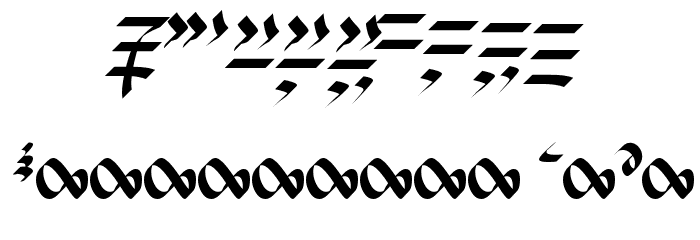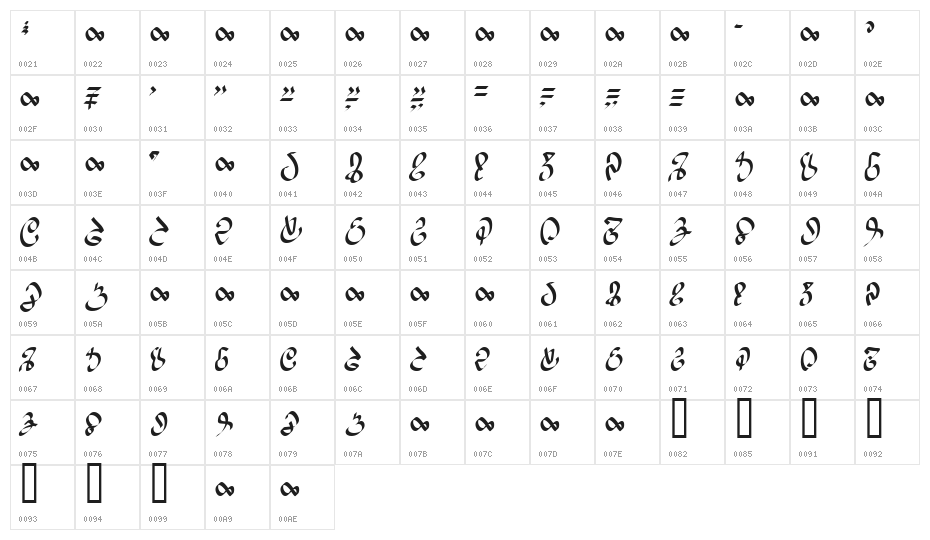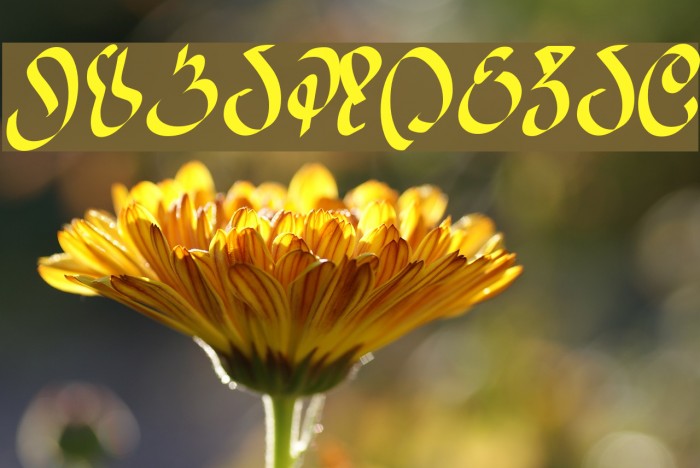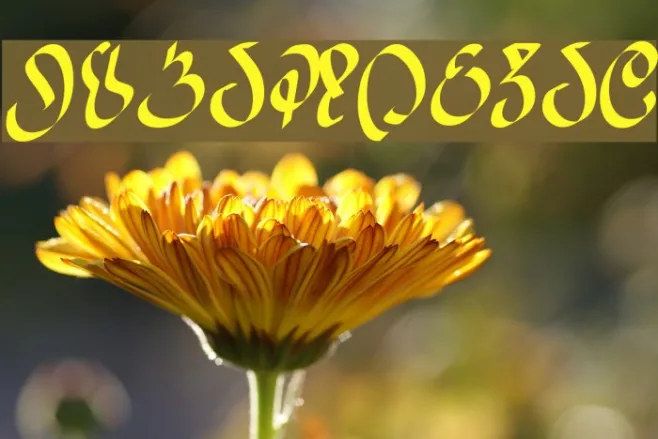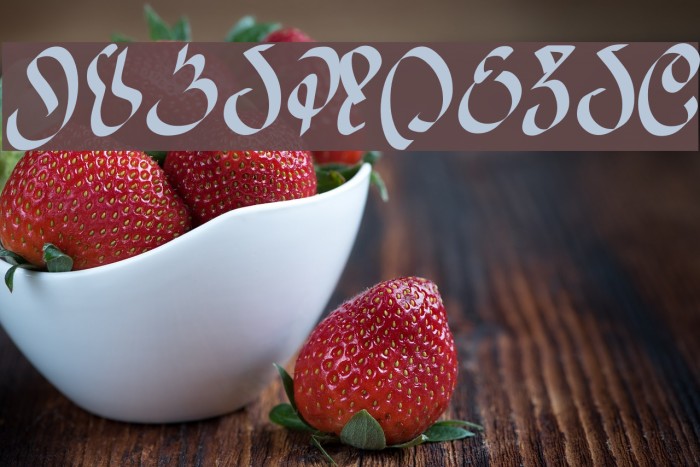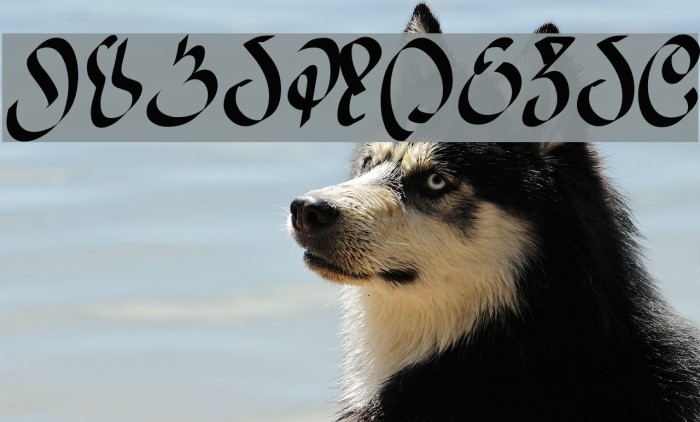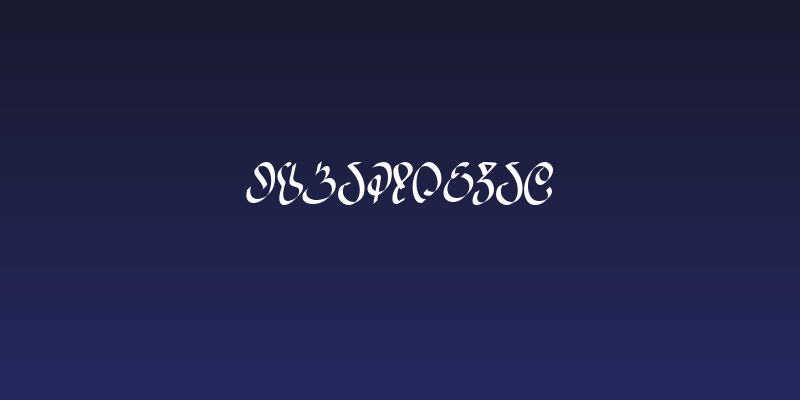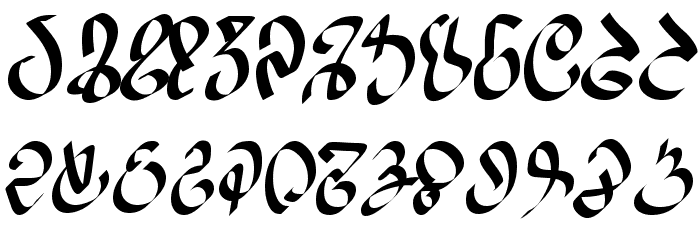
WizardSpeak Font
WizardSpeak Description
This font features a highly decorative and mystical style, reminiscent of ancient scripts or magical runes. The characters are bold and flowing, with intricate curves and sharp angles that create a sense of movement and energy. The uppercase and lowercase letters share similar design elements, maintaining a cohesive look throughout. The numerals and special characters are equally stylized, adding to the font's unique and enchanting appearance. This font is ideal for projects that require a touch of fantasy or mystery, such as game design, book covers, or themed event materials.
| Overall Style | Mystical, Enchanting, Decorative |
| Use Case | Logos, Headlines, Themed Designs |
| Proposed Projects | Fantasy book covers, game design, themed event materials, magical branding. |